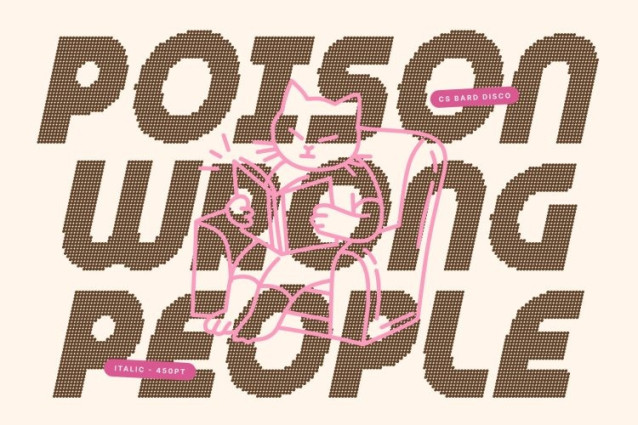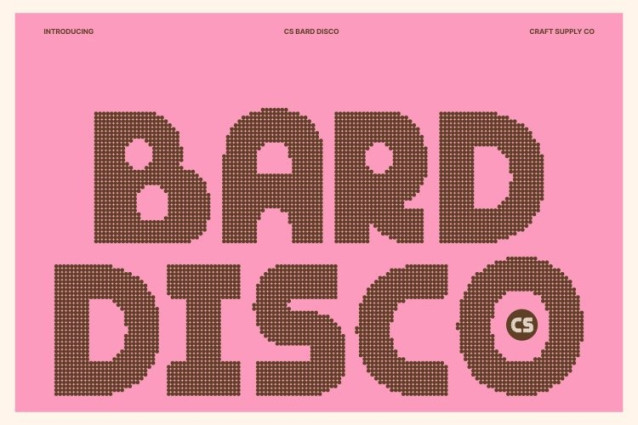
CS Bard Disco Font
CS Bard Disco Font This is a bold and chunky display font designed to radiate confidence and personality. Its thick strokes and geometric construction create a strong modern presence that instantly commands attention. Whether used in headlines, posters, or branding, each letter delivers impactful clarity and bold visual weight.
Playful Character with Disco-Inspired Sparkle
Beyond its solid structure, this font features quirky details that add charm and playfulness. Enhanced with a disco style, the font takes on a glamorous, shimmering quality evoking flashing lights, reflective surfaces, and energetic party atmospheres. This balance of strength and sparkle makes it feel fun, stylish, and expressive.
Versatile for Creative and Lifestyle Branding
This font adapts beautifully across creative applications, from branding and product packaging to social media graphics, event promotions, and editorial layouts. Its clean geometry ensures readability, while the disco-inspired flair adds excitement and contemporary style perfect for designs that aim to feel lively and inviting.
Eye-Catching, Energetic, and Made to Shine
Designed to be bold and memorable, this font brings modern charm and vibrant energy to every project. Ideal for party-themed designs, stylish branding, and eye-catching visuals, this font delivers a confident, glamorous shine that ensures your designs stand out and leave a lasting impression.